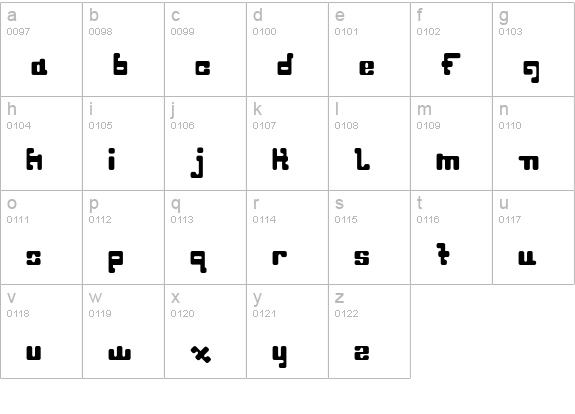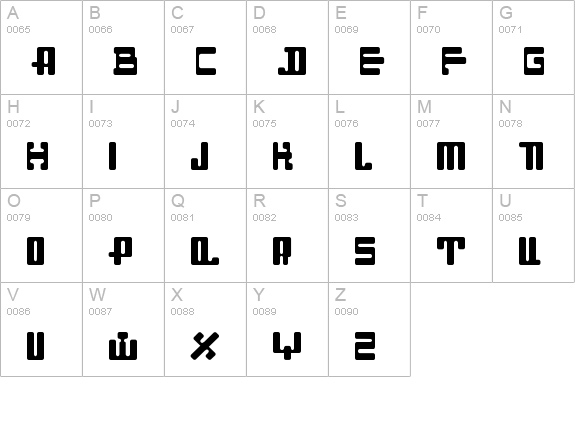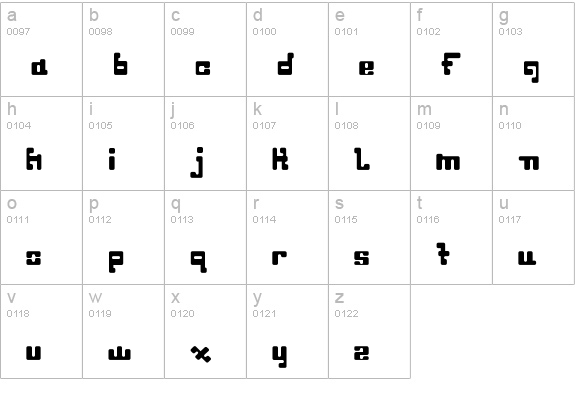
Dahgir-Round Font Details
Dahgir-Round font is a mesmerizing typeface that exudes elegance and creativity. Its unique round shape and smooth curves make it the perfect choice for projects that require a touch of sophistication. This font is not only visually appealing, but also highly legible, ensuring that your message is conveyed effortlessly. What makes Dahgir-Round font even more appealing is the fact that it is freely available to download at FontsMarket.com. This means that you can enhance your designs without worrying about any additional costs. Whether you are a professional graphic designer or a hobbyist, this font is a must-have in your collection. With its versatility, Dahgir-Round font can be used across various design projects, such as logos, branding, invitations, posters, and more. Its timeless appeal ensures that your creations will stand the test of time and leave a lasting impression on your audience. The attention to detail in Dahgir-Round font is truly remarkable. Each letter showcases intricate craftsmanship, resulting in a font that is both visually stunning and highly functional. The smooth lines and flawless curves add a touch of elegance to any project, making it a go-to choice for designers seeking to elevate their work. In conclusion, Dahgir-Round font is a free font that combines beauty, legibility, and versatility. With its availability for download at FontsMarket.com, it has become even more accessible to designers of all levels. Whether you are looking to create a professional logo or add a touch of sophistication to your personal projects, Dahgir-Round font is the perfect tool to bring your vision to life.